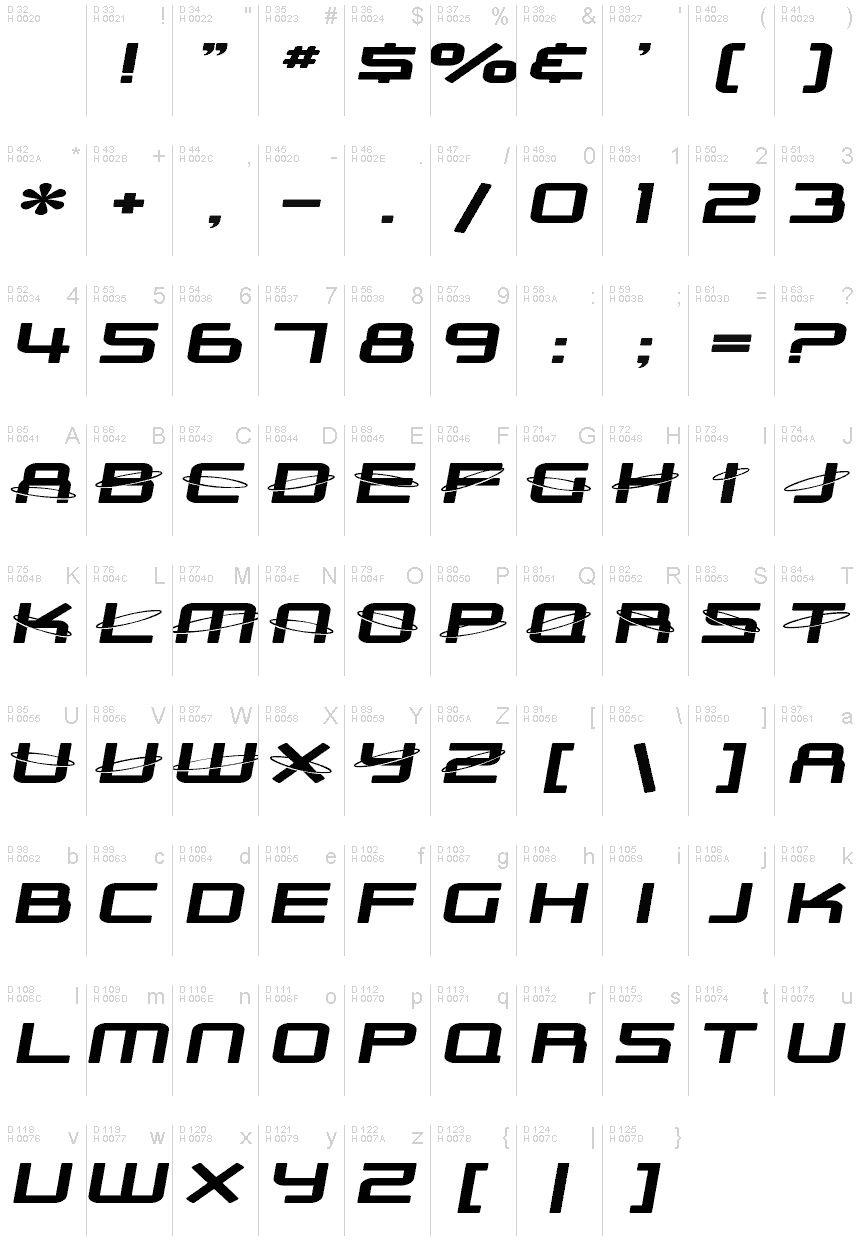
SF Outer Limits Extended
SF Outer Limits Extended, a standout member of the SF Outer Limits font family, brings a slice of the future to your fingertips. Crafted by ShyFonts Type Foundry, this display font captures the essence of cutting-edge design with its extra-expanded width and sharp geometric forms, evoking an unmistakable sense of advancement and modernity.
With its futuristic style, SF Outer Limits Extended offers a robust aesthetic that commands attention. Its broad characters are not just impressive in stature; they convey strength and presence, making them a perfect choice for any project aiming to leave a lasting impact. Whether used for titles in science fiction literature or as the focal point in tech-themed advertising campaigns, this font ensures readability while maintaining an ultra-modern vibe.
Embrace the potential of SF Outer Limits Extended to elevate your creative endeavors with its forward-thinking flair and expansive character set.